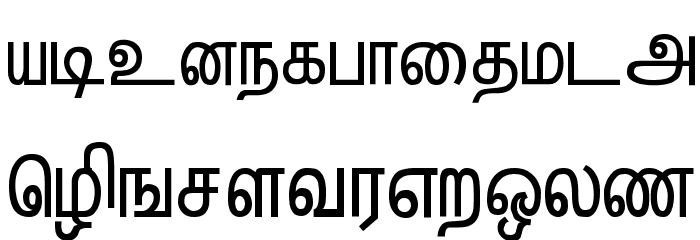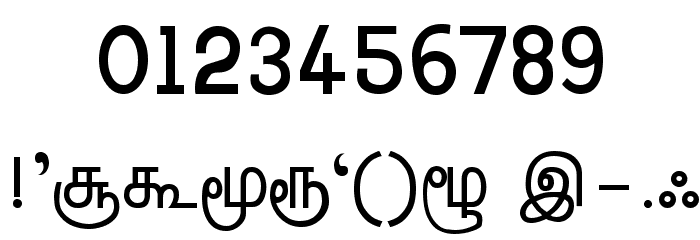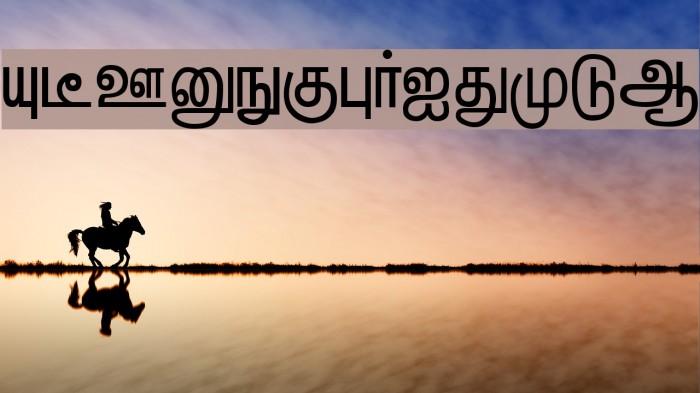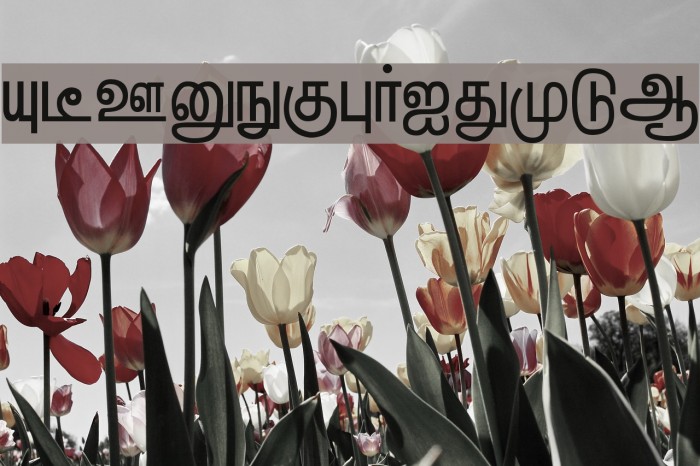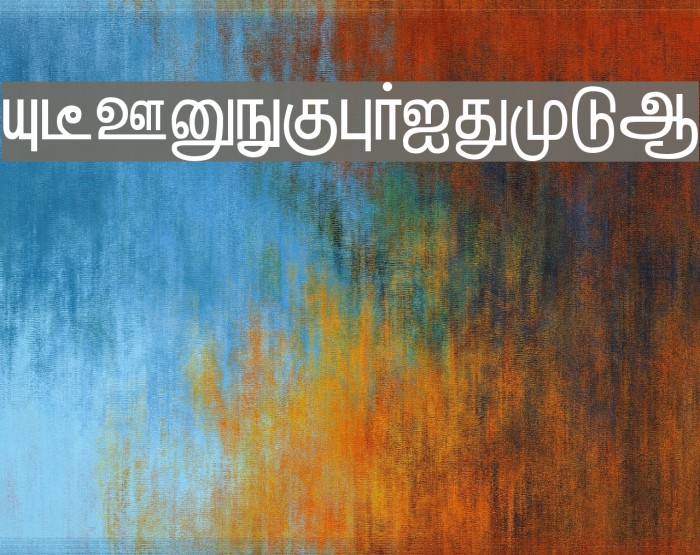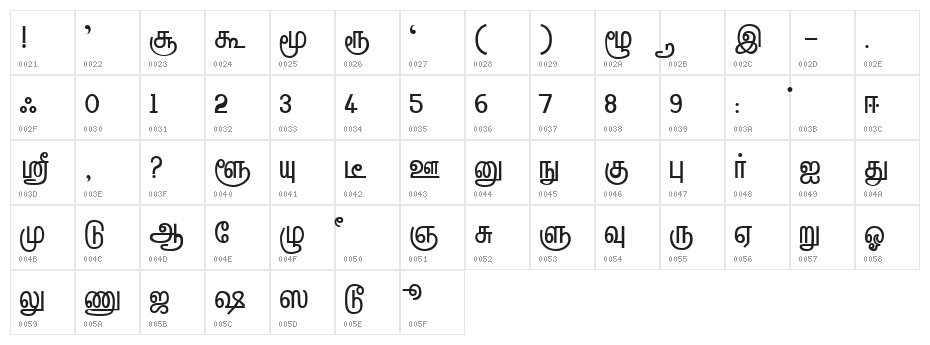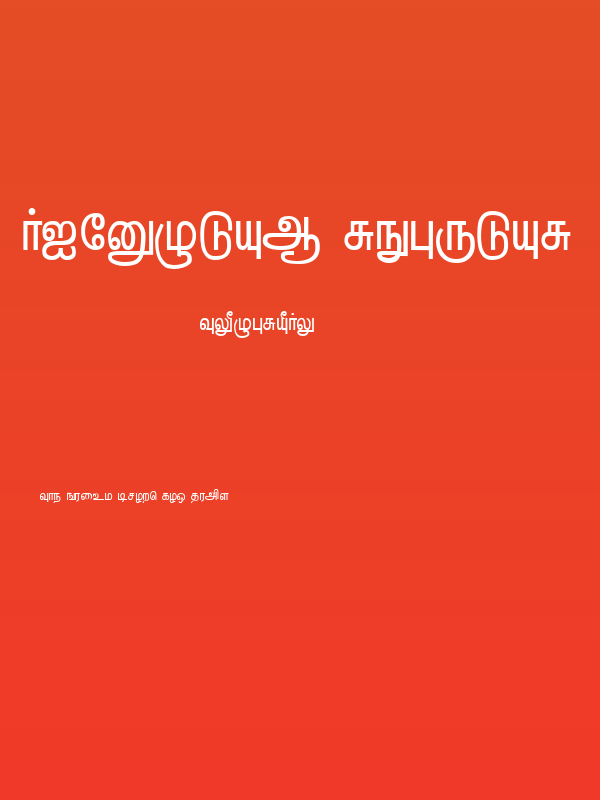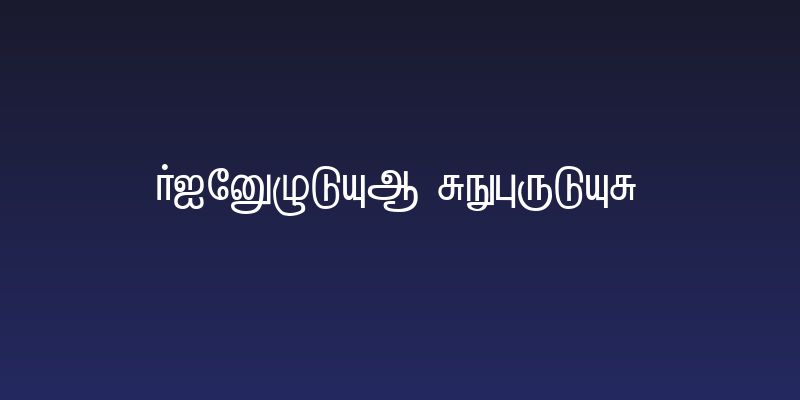
Hindolam Regular Font
This font exhibits a clean and modern design with a focus on readability and clarity. The characters are well-defined with consistent stroke widths, making it suitable for both digital and print media. The numerals are clear and distinct, ensuring easy readability in various contexts. The special characters are designed to complement the overall style, maintaining a cohesive look across all glyphs. The font's structure supports a wide range of applications, from headlines to body text, due to its balanced proportions and straightforward design.
A clean, modern font with consistent stroke widths and excellent readability.